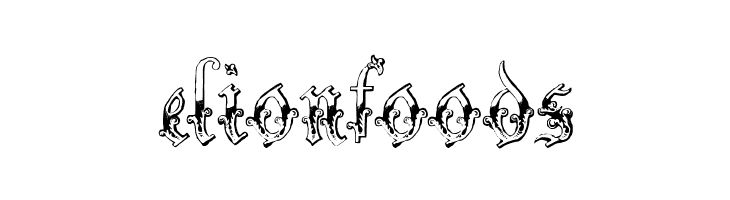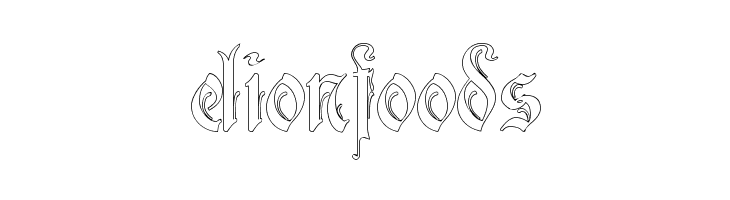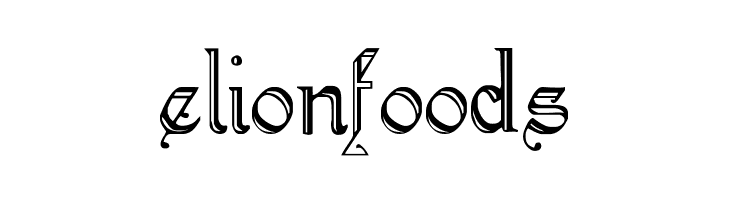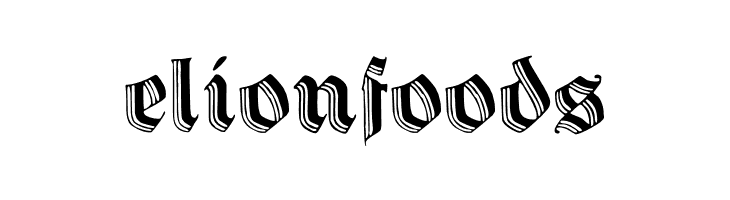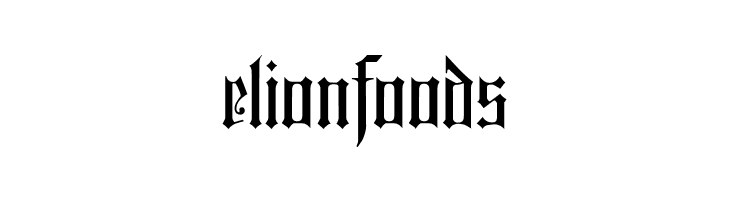
An ornate, decorative font with intricate flourishes and historical charm.
An ornate, decorative outline font with intricate flourishes and a medieval aesthetic.
A decorative Gothic font with intricate flourishes and modern elements.
A bold, ornate blackletter font with a medieval aesthetic.
A bold, gothic blackletter font with intricate detailing and sharp, angular strokes.
An ornate and decorative font with floral and vine motifs, ideal for historical themes.
An ornate blackletter font with intricate detailing and a classic, formal style.
A bold, decorative font with spiky, explosive embellishments.